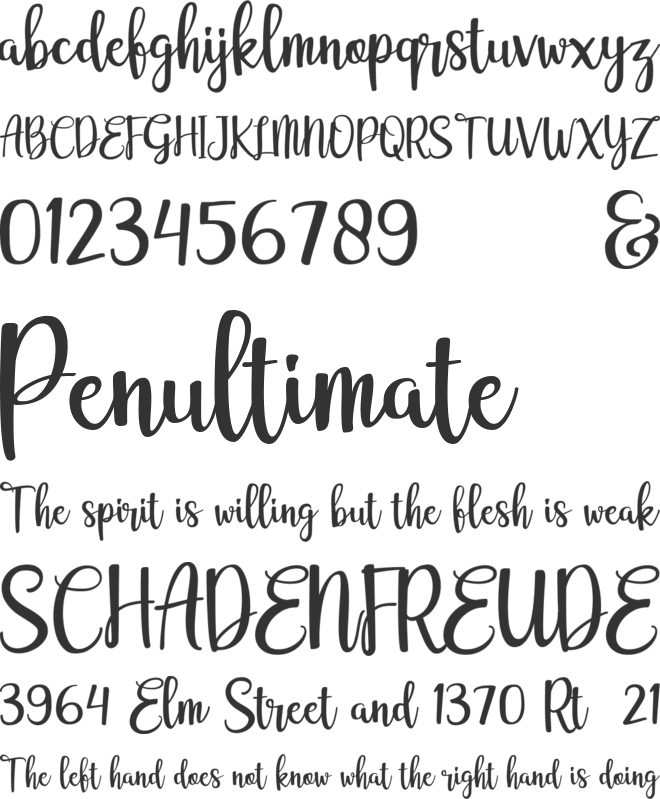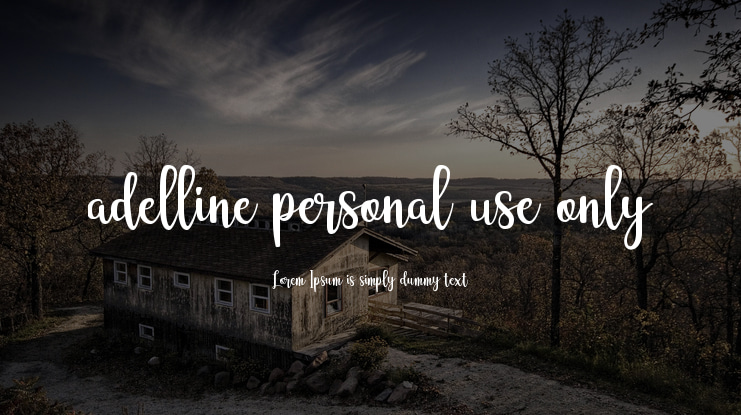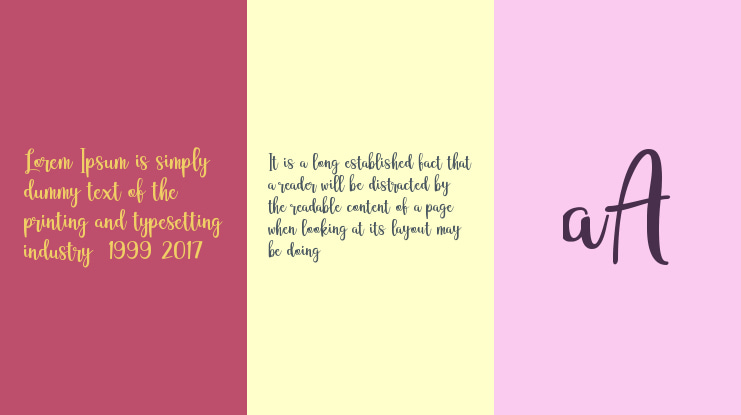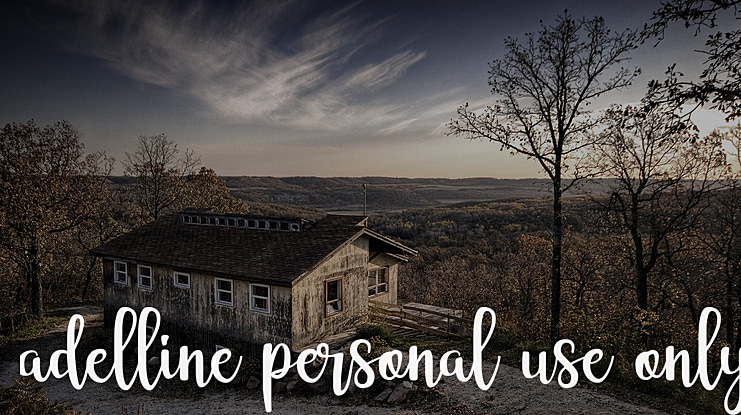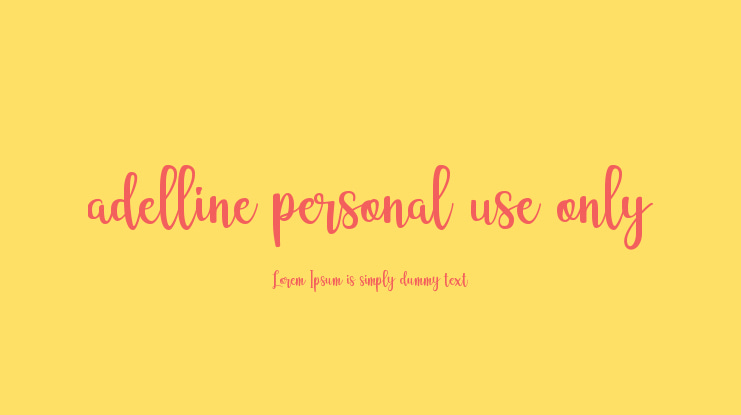
adelline personal use only Font
Adelline was made using a brush pen, with a free hand writing technique on a paper, scan it and carefully vectorized to get its brush pen signature.
Adelline would perfect for photography, tittle, heading, watermark, social media posts, advertisements, logos & branding, invitation, product designs,
label, stationery, wedding designs, product packaging, graphic design that need handwriting taste.